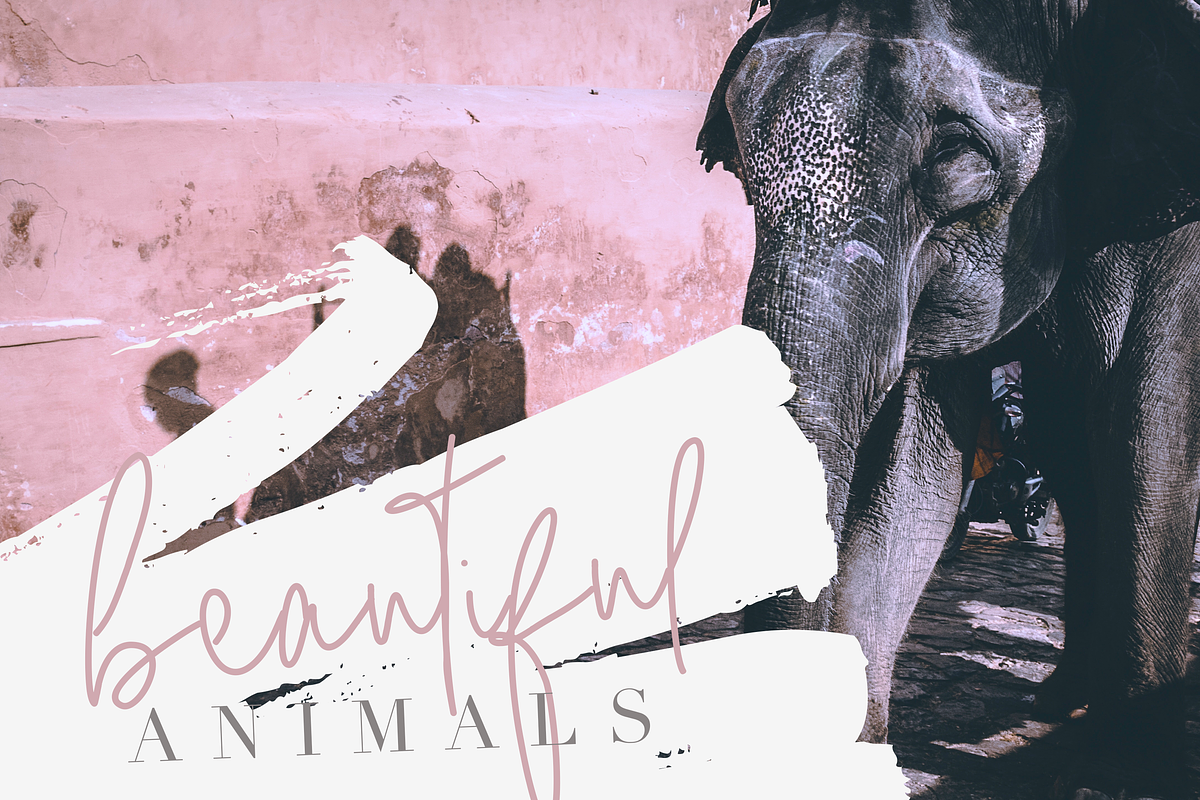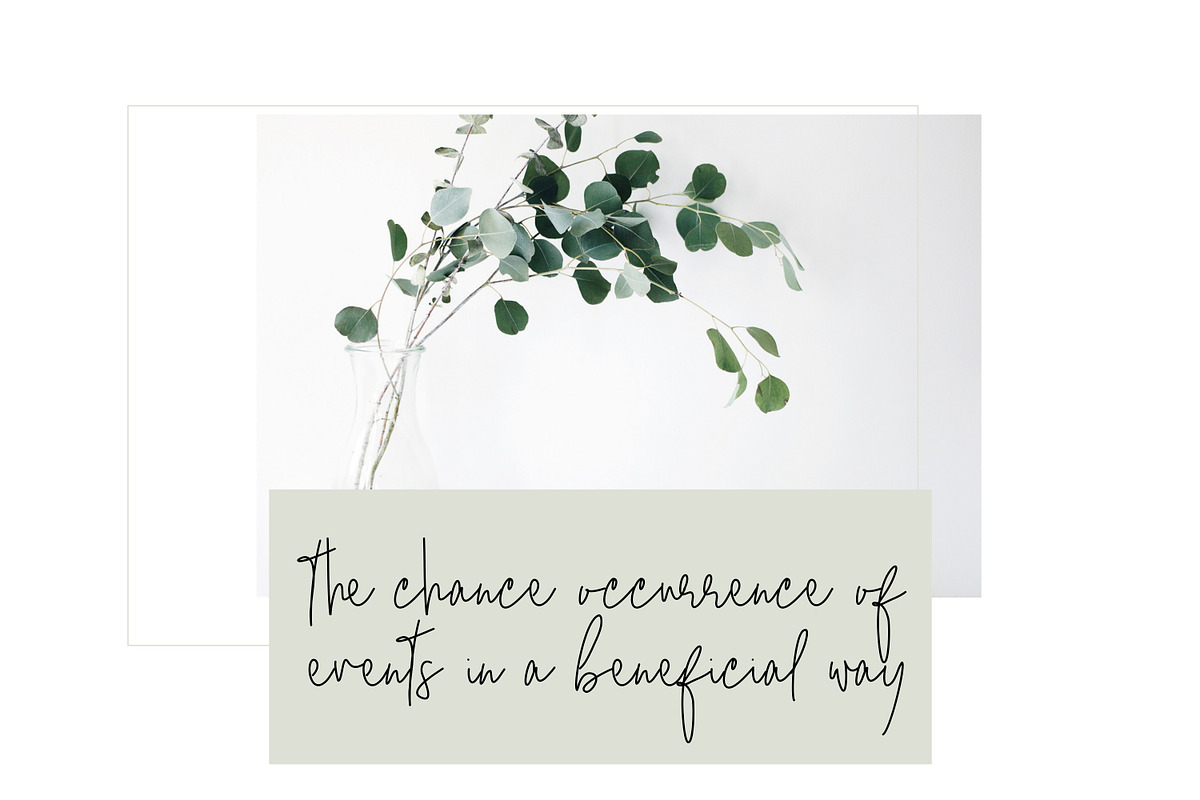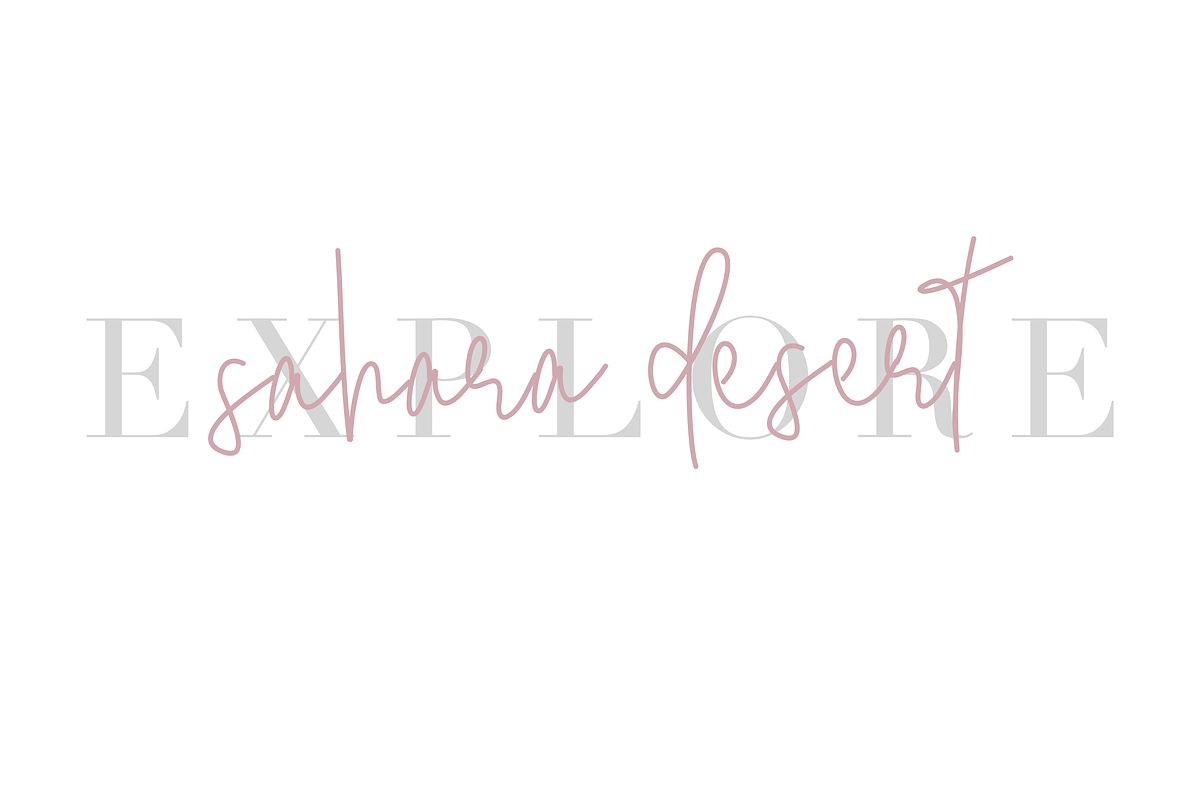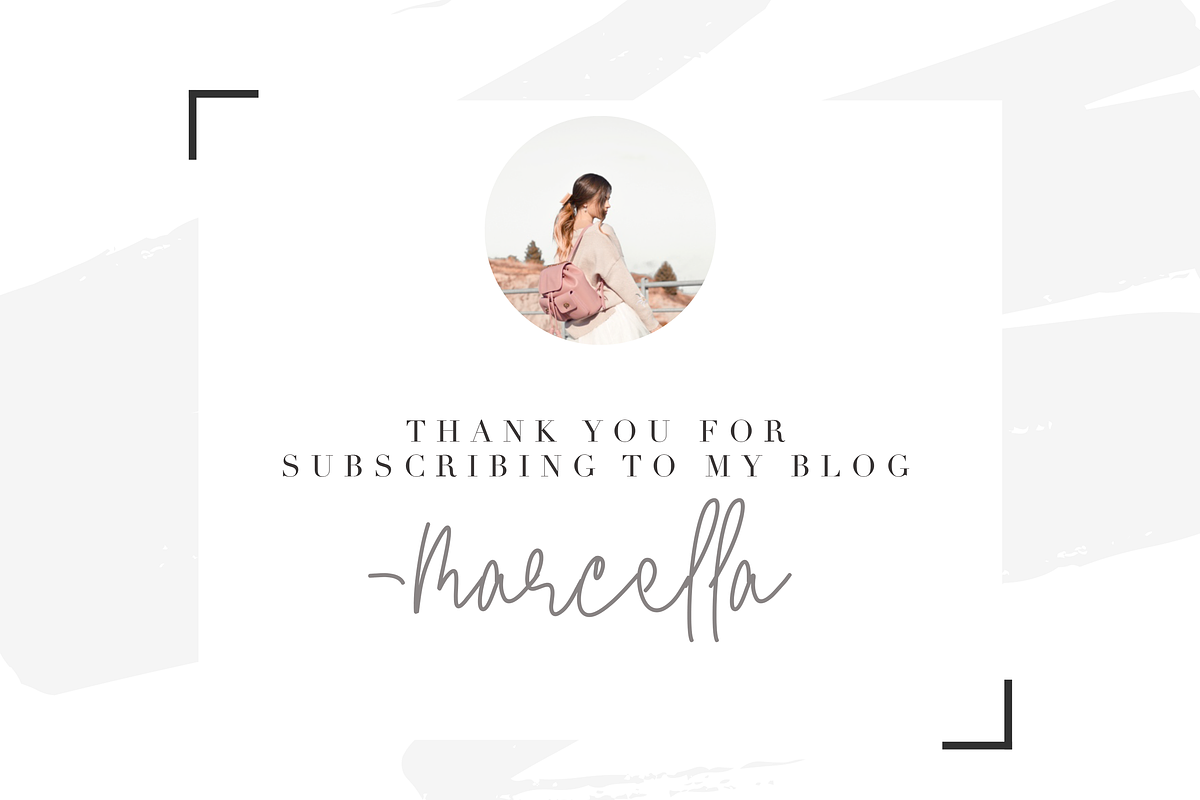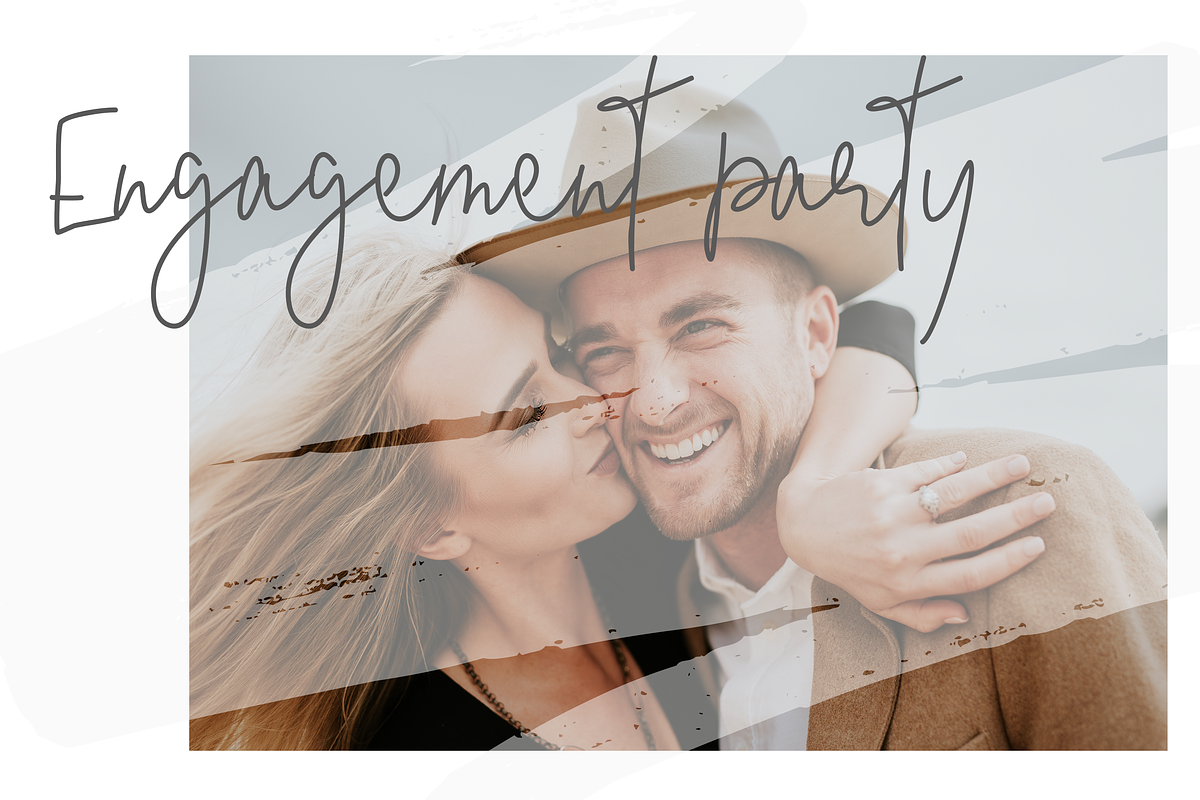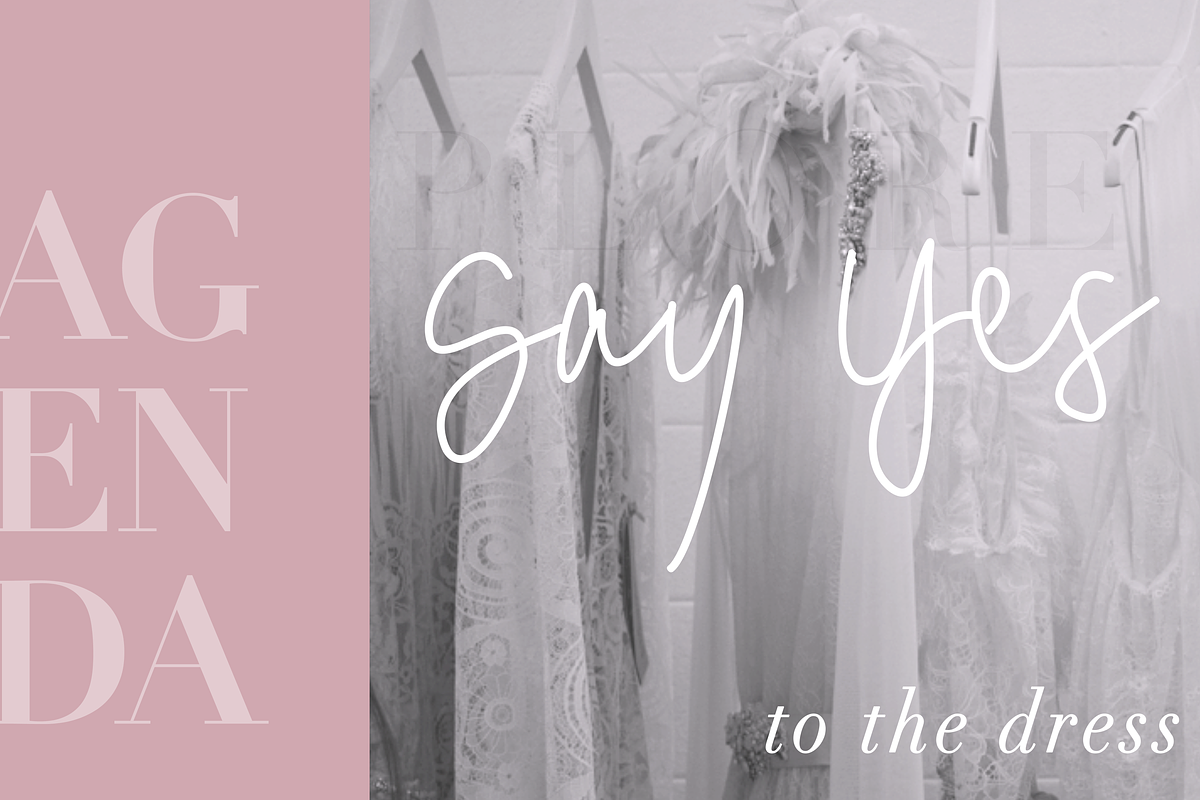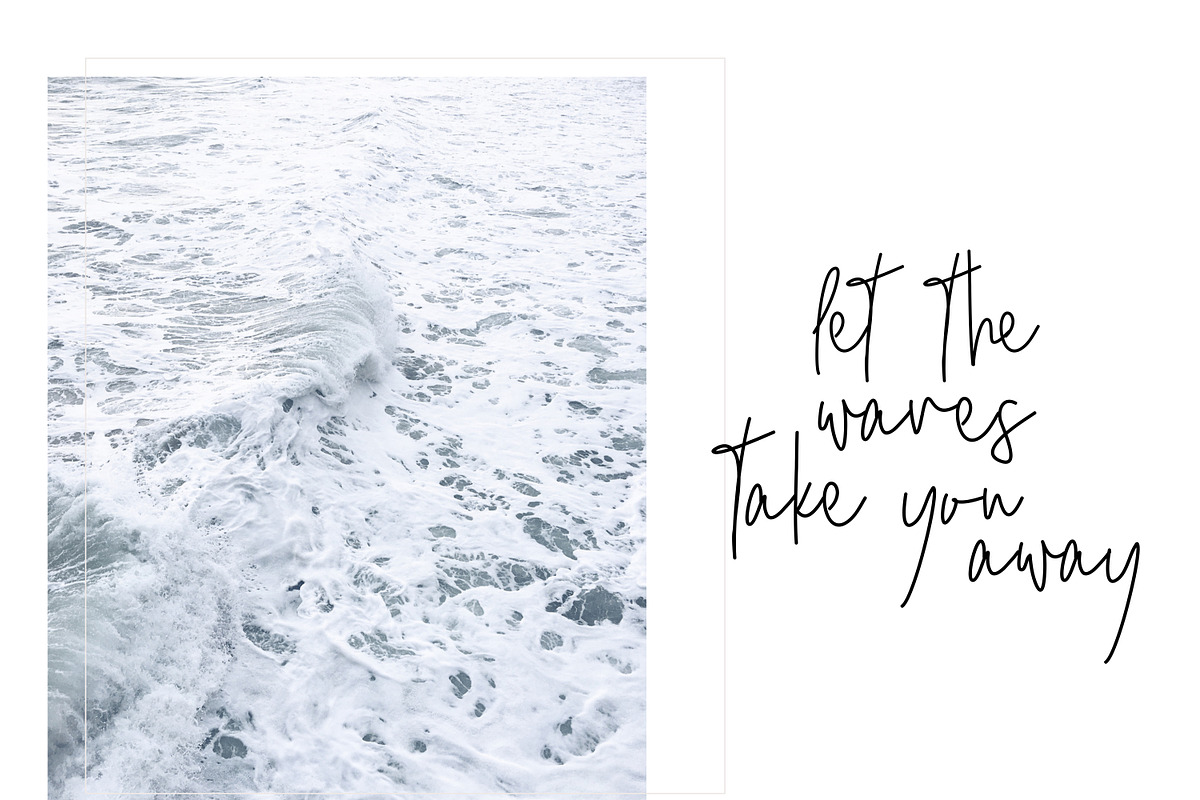
Serendipity Font - Chic Script
Serendipity is a chic handwritten font.
It is beautiful, messy and classy.
This font does not include accent characters.